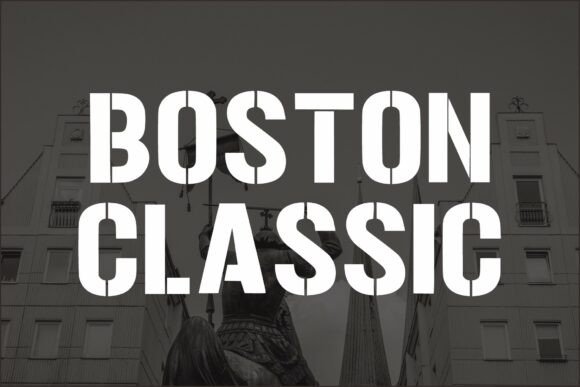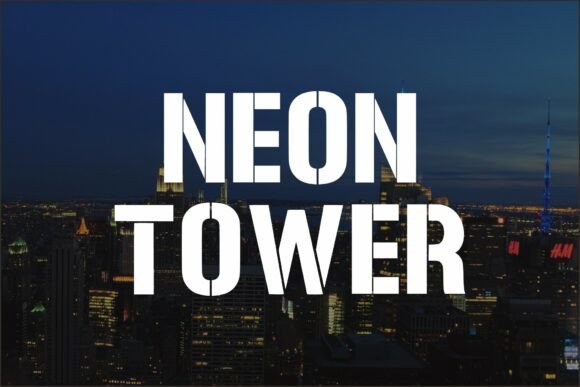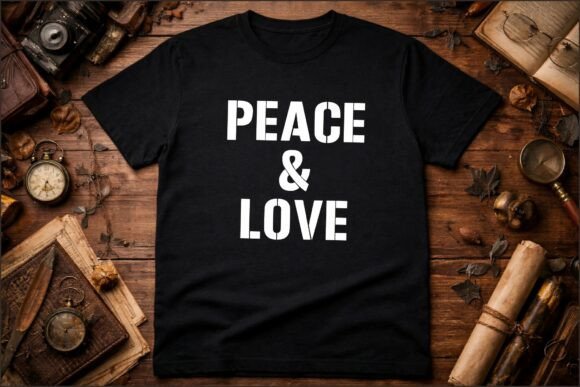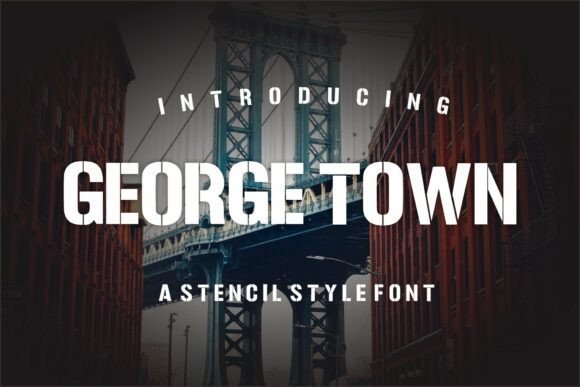
Introduction to George Town Font
Urban Stencil Typeface Inspired by Classic Industrial Signage Georgetown is a bold stencil-style display font inspired by urban architecture, industrial signage, and classic American city typography.
With strong geometric shapes and clean stencil cuts, this typeface delivers a powerful and modern look that works perfectly for branding, posters, streetwear designs, logos, headlines, and editorial layouts .